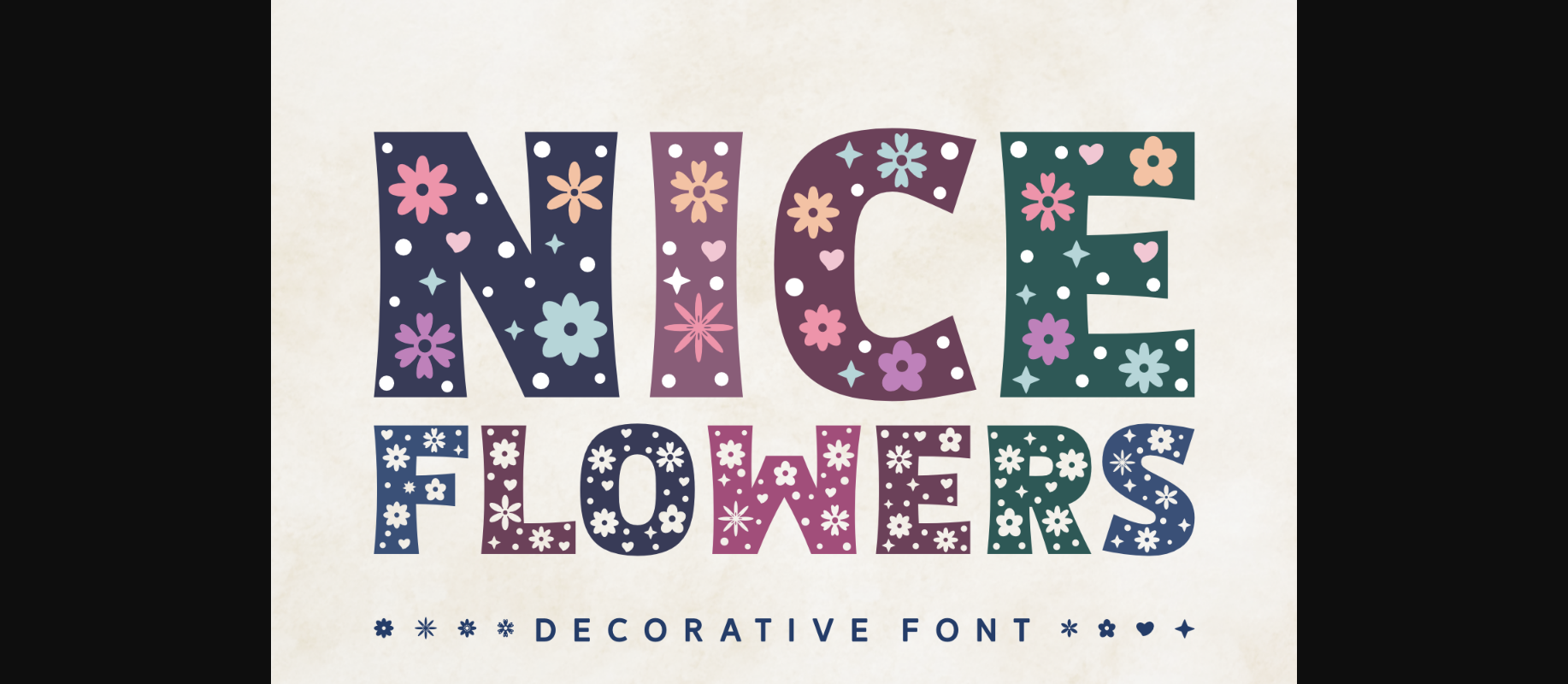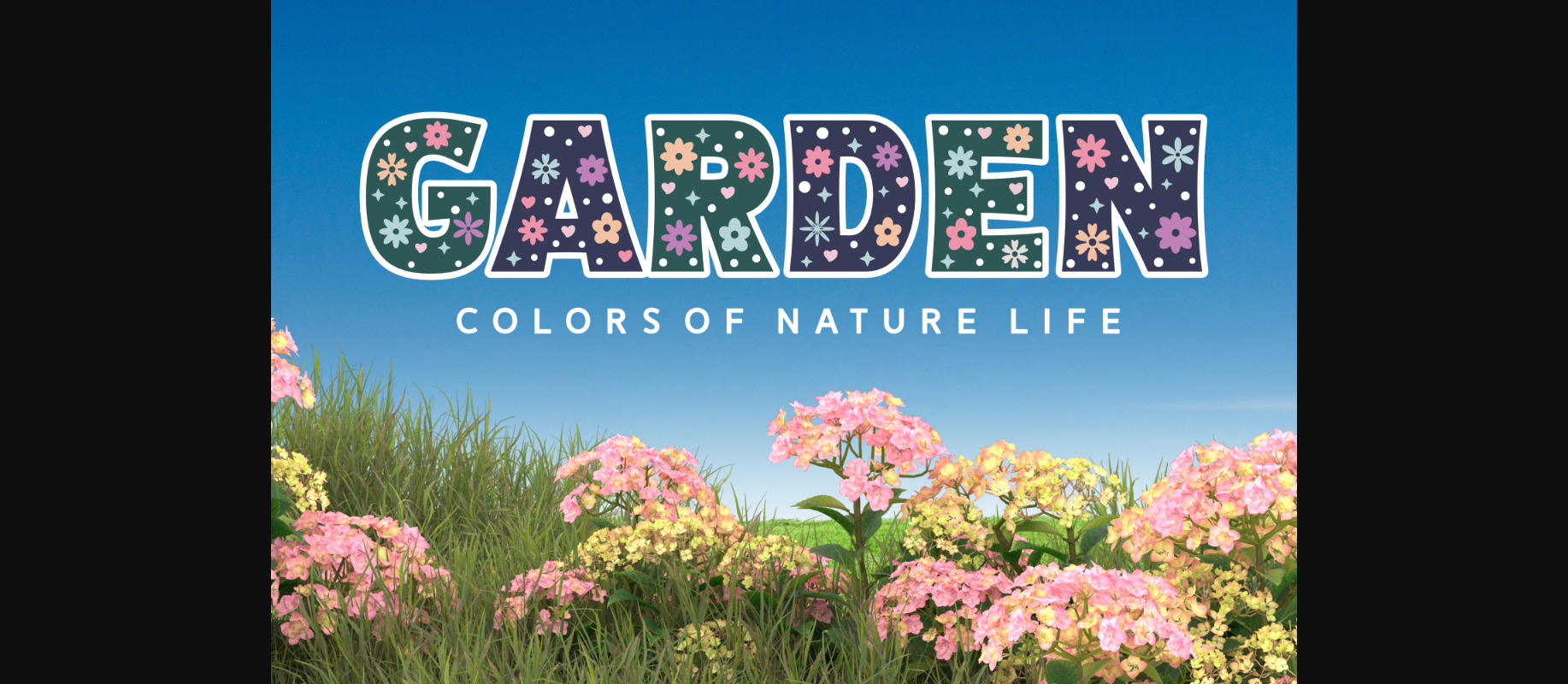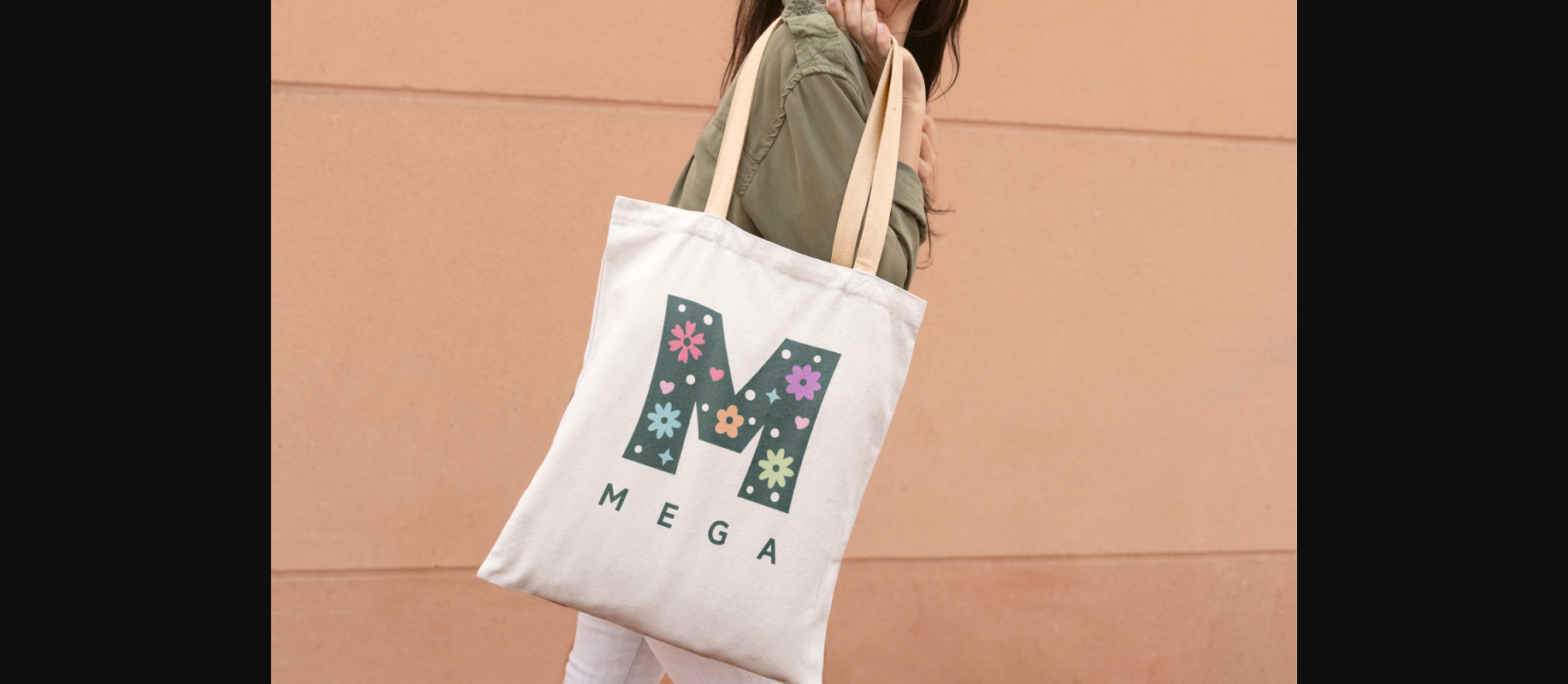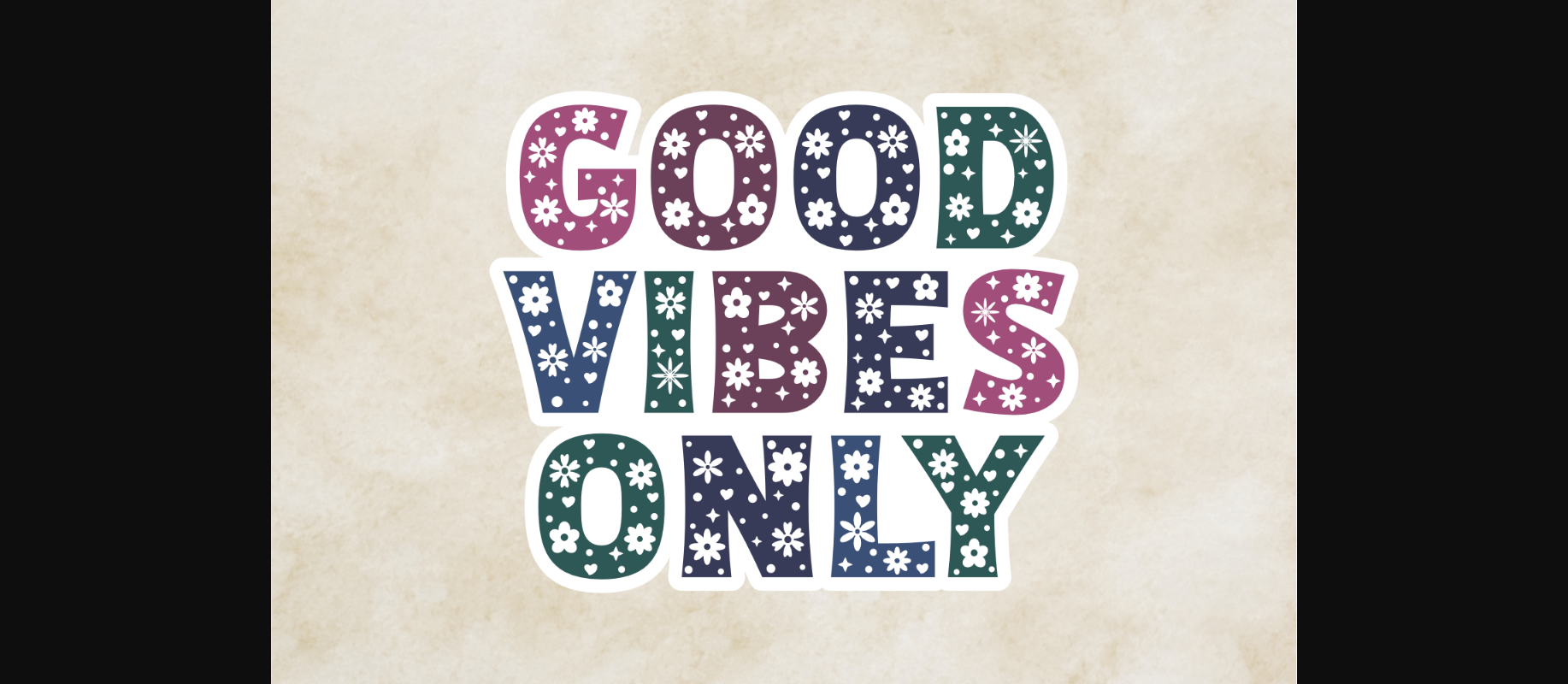
Nice Flowers Font
About Nice Flowers Font
Looking to add a hippie, jolly vibe to your designs? This flower-power-inspired decorative font is here to you out with your creative endeavors. Nice Flowers will enhance any project you wish to create!